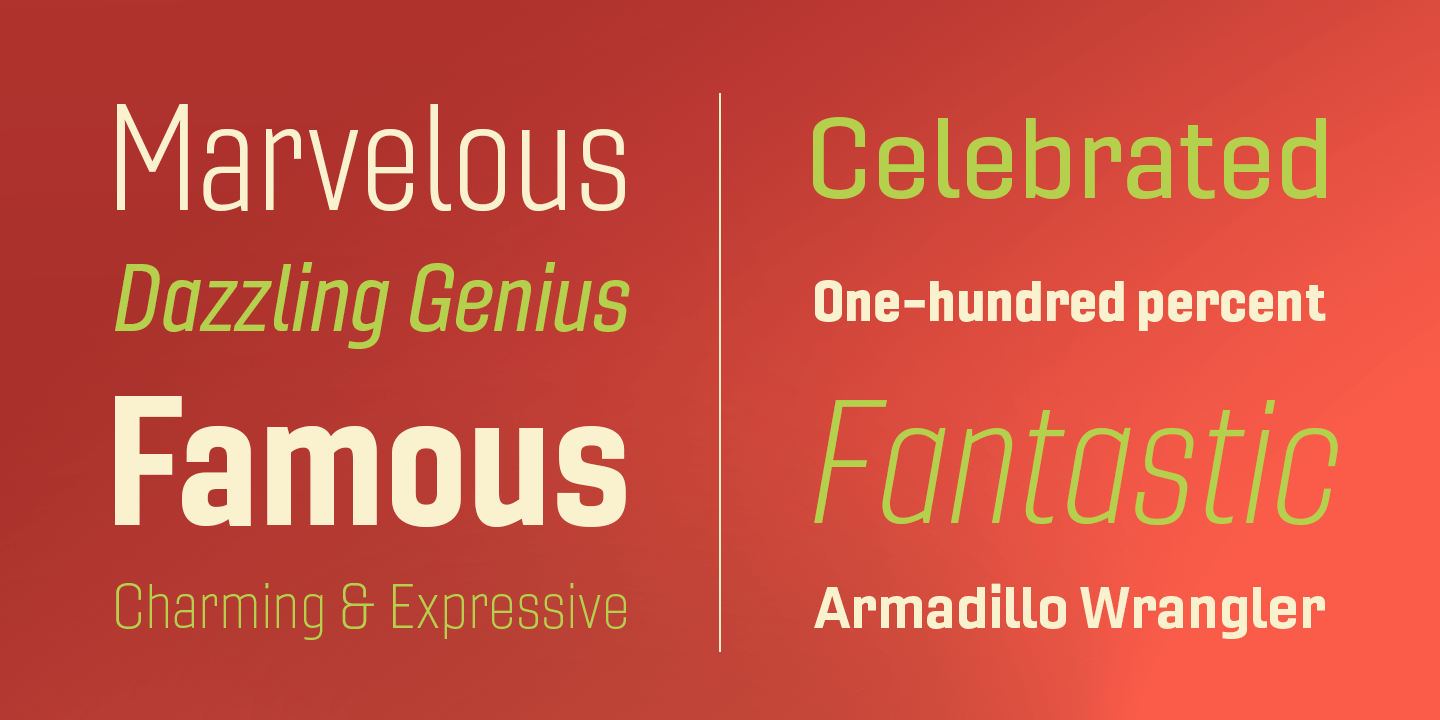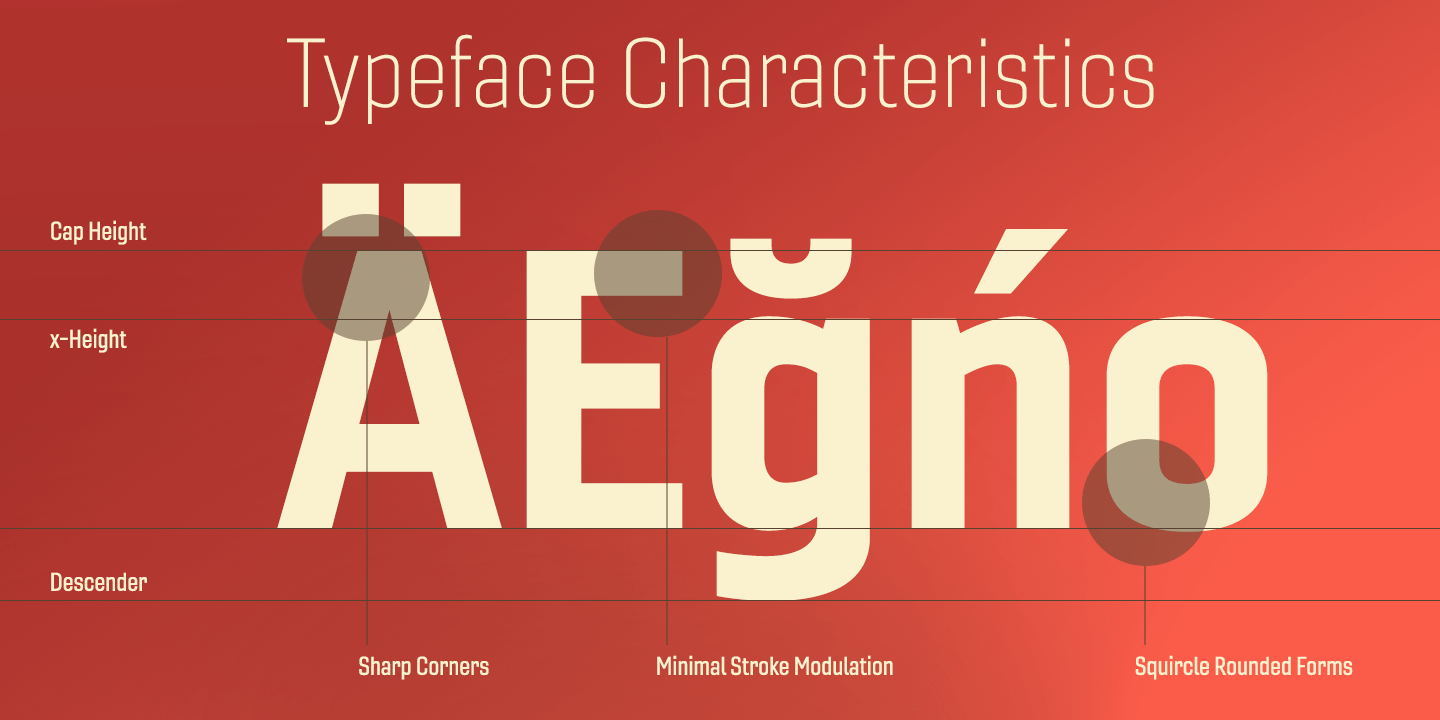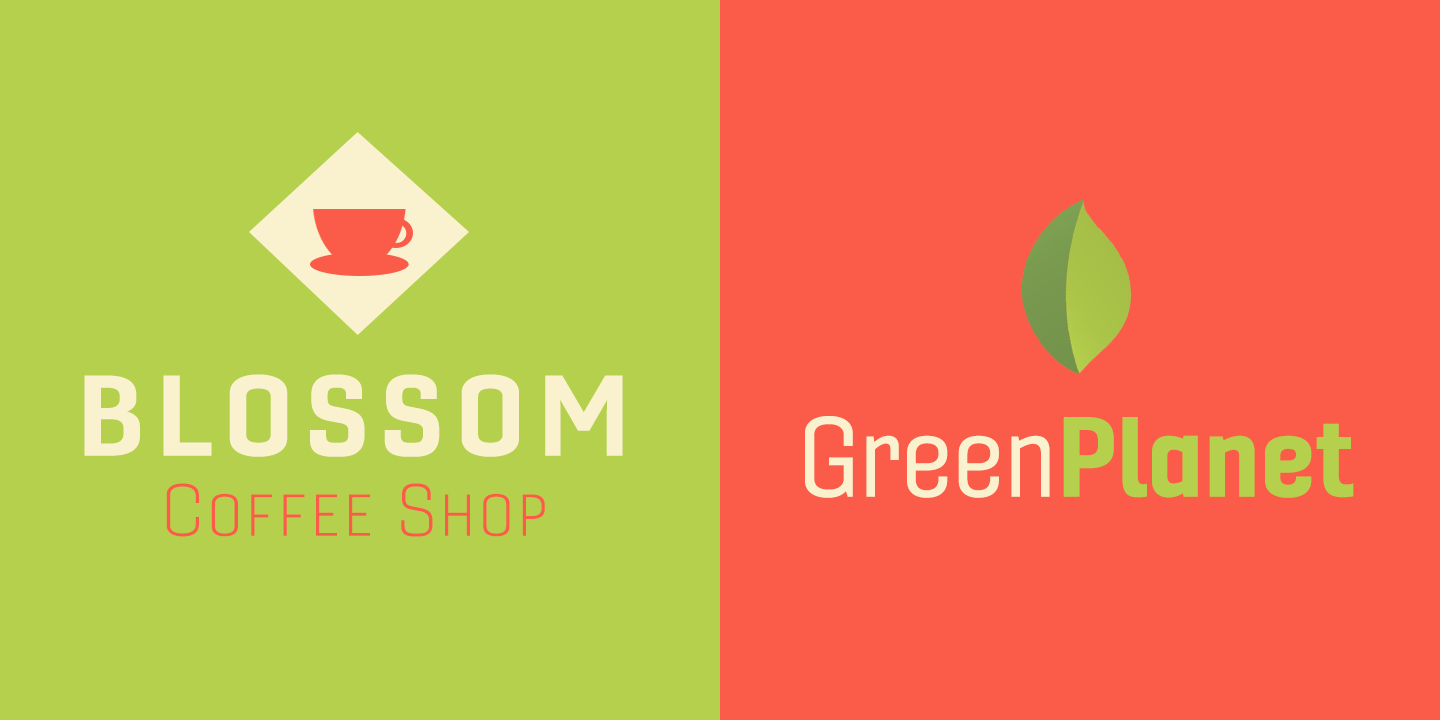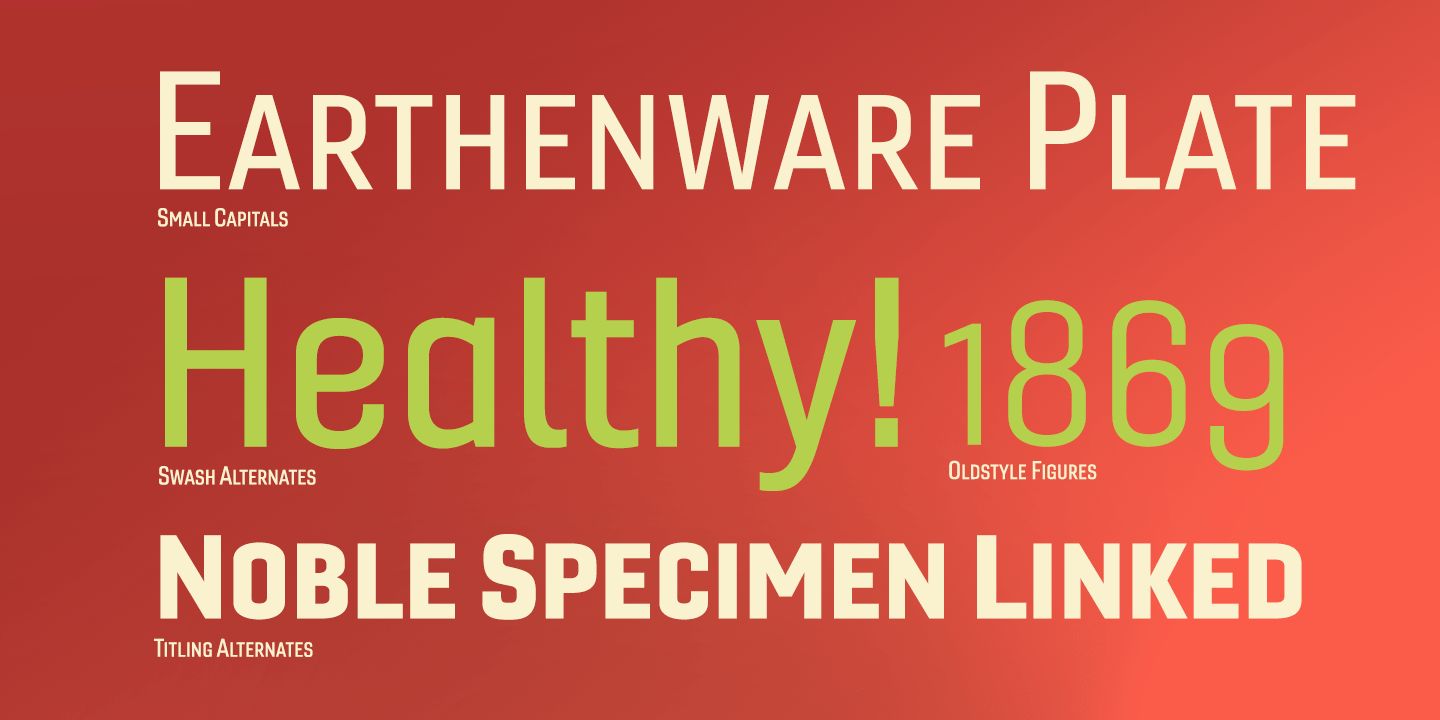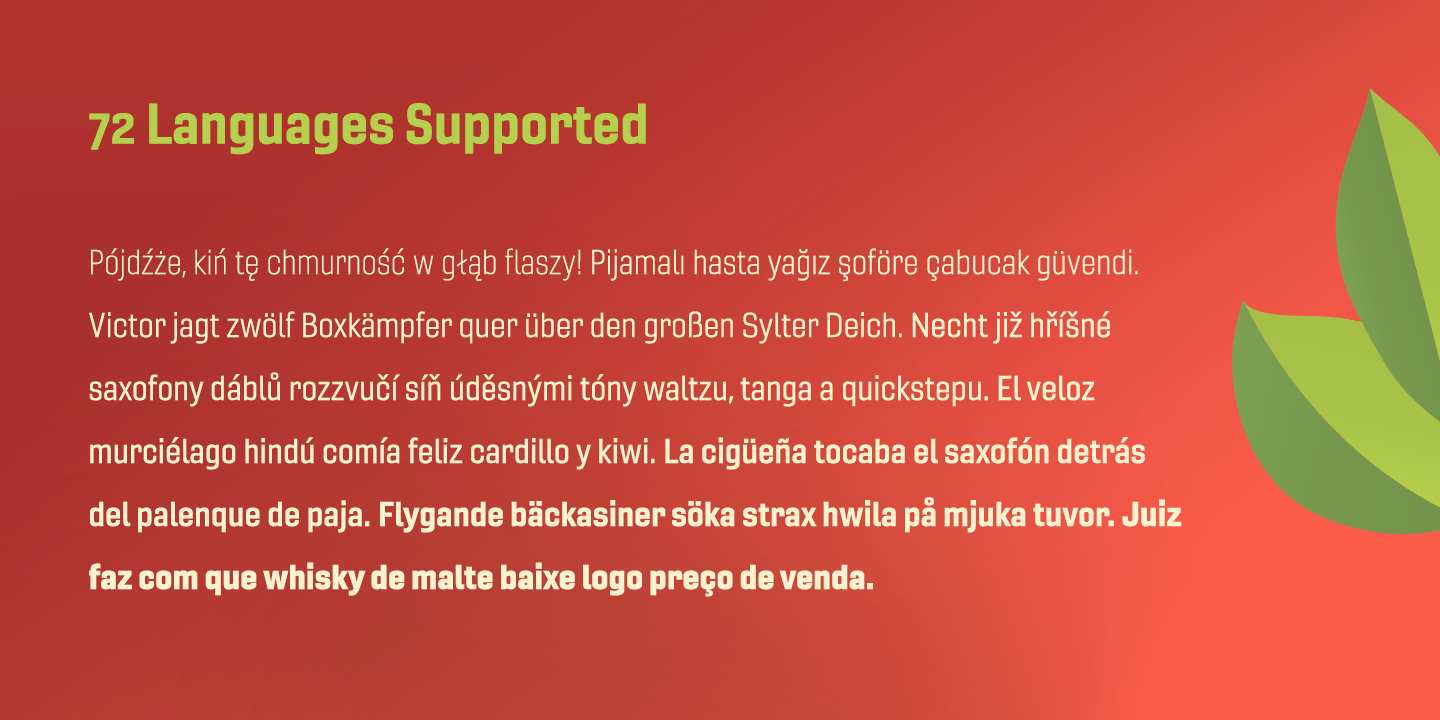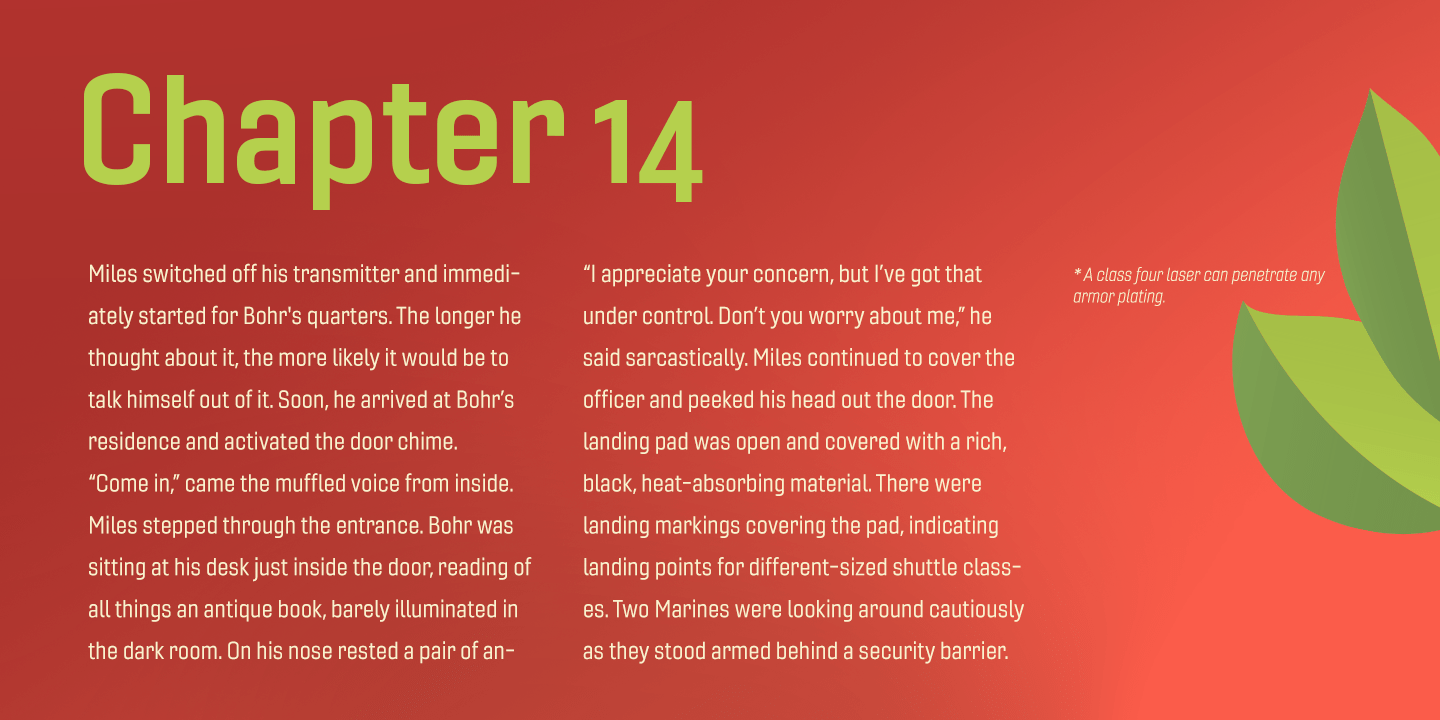
Gineso
Font Family by Insigne
Gineso was created for posters, headlines and logotypes. (It does well in apps, too, though the sign painters probably weren't thinking about that at the time.) Aesthetically remedied, yet still with an uncut charm, Gineso's condensed qualities make it especially nice for signs and titling where horizontal space is at a premium. The tight, narrow forms of its geometric design leave you with a robust flavor that will remind you of mamma's spaghetti. But don't worry; the font's ample counters ensure your audience won't be reading through a bowl of pasta.
These condensed forms look great on their own or when their seven different weights and matching italics are utilized together. With the included OpenType features, fractions and superior/inferior positions are also available to broaden your palette. Even more, this font is ready for complex, professional typography with OpenType features like alternate letters and a large character set including Central and Eastern European Languages.
So when you find yourself (or your project) in a tight space, stir in Gineso to get the right taste for your copy. It may just make all the difference.